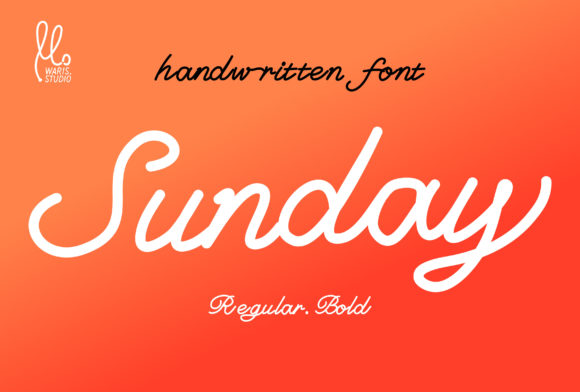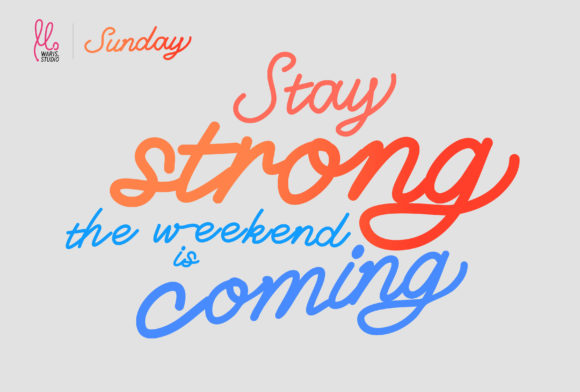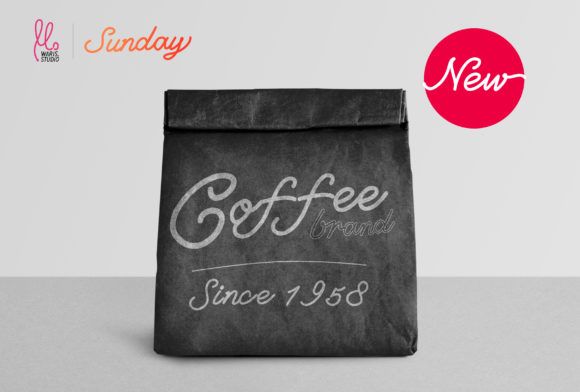
Sunday Font
About Sunday Font
Sunday is a graceful and well balanced handwritten font. Dainty and joyful, this font will be ideal for writing wedding invitations, cards or any other design that may need a romantic, personalized touch!